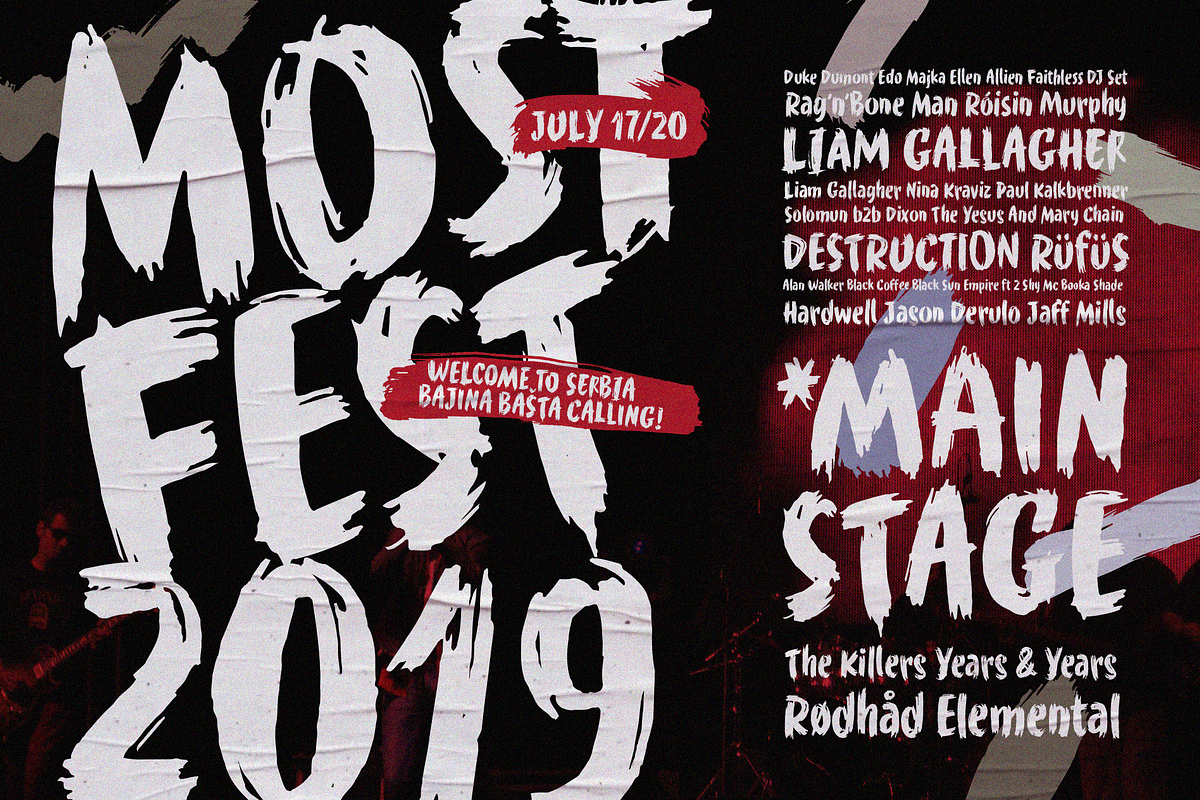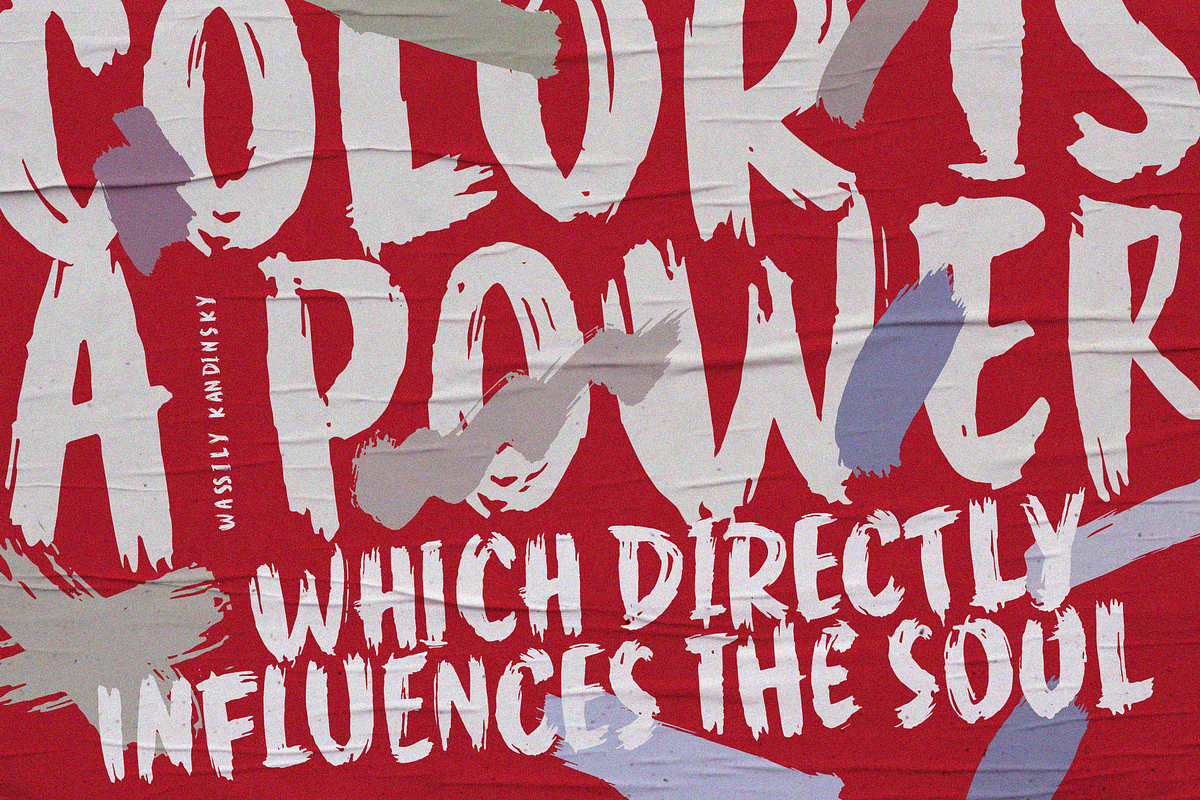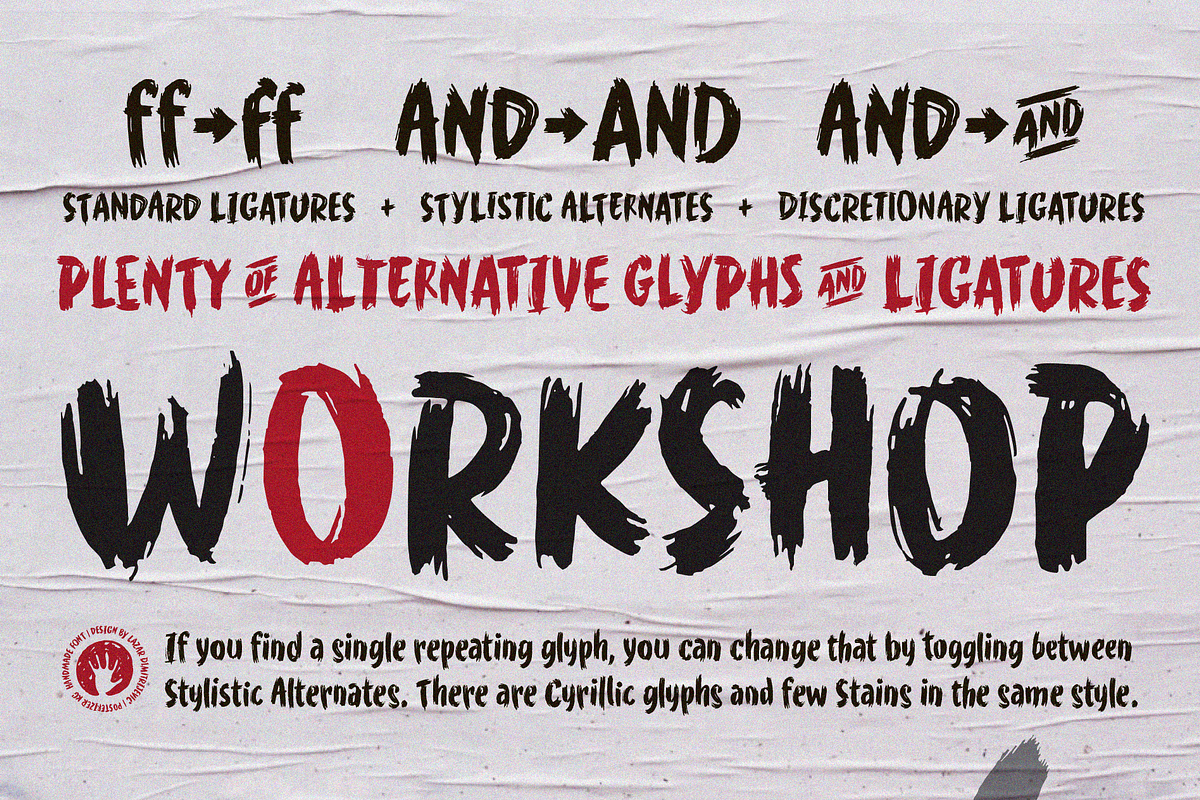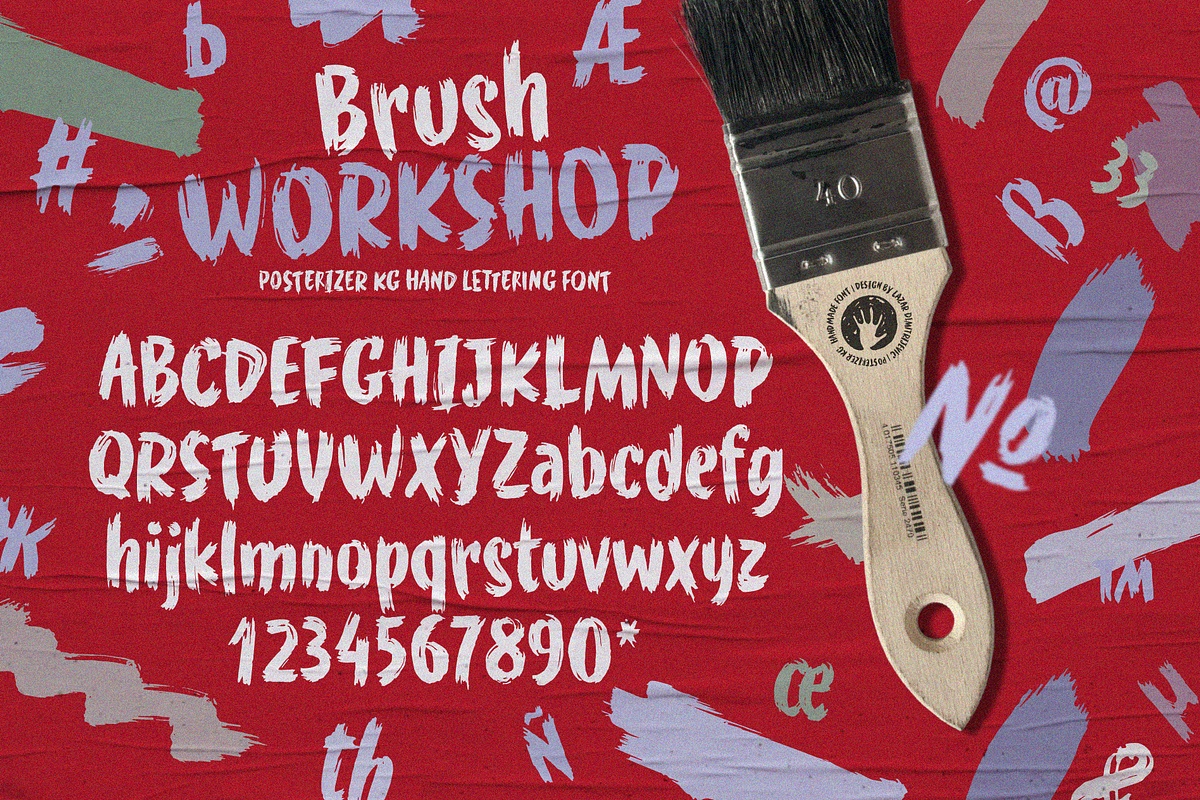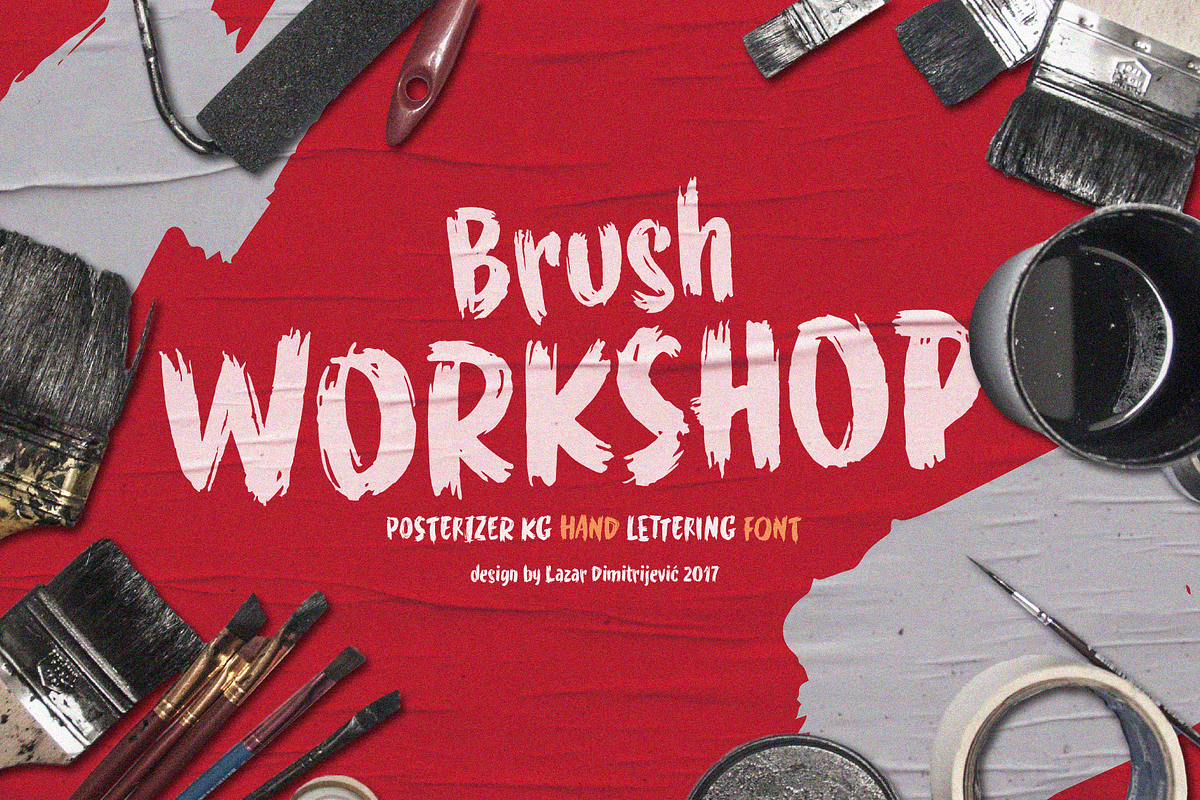
WORKSHOP Brush
WORKSHOP Brush is one more of three WORKSHOP handwritten fonts, created to imitate a manuscript written with a brush. You can use the alternates and ligatures to give your design a realistic, hand-painted look. If you find a single repeating glyph, you can change that by toggling between Stylistic Alternates. There are Cyrillic glyphs and a few Stains in the same style. WORKSHOP Brush is the perfect choice for those who prefer more expressive typography.